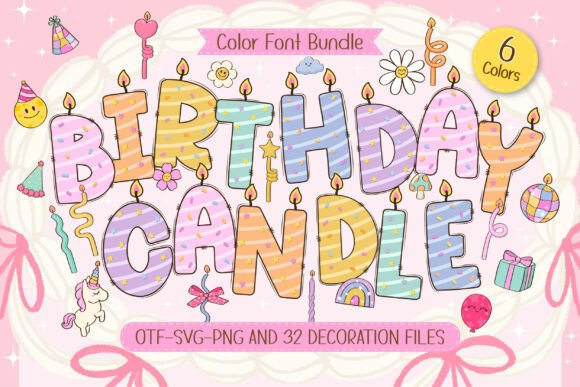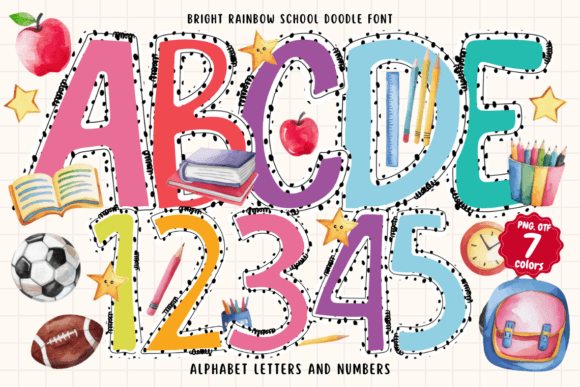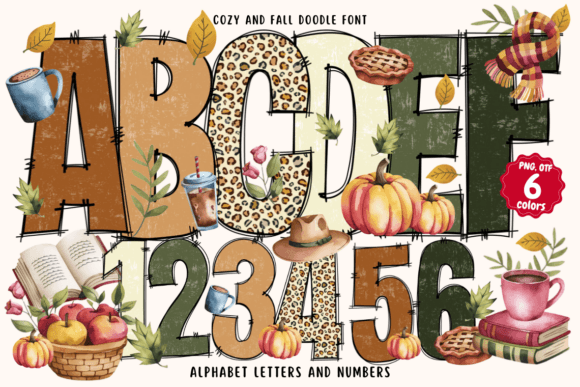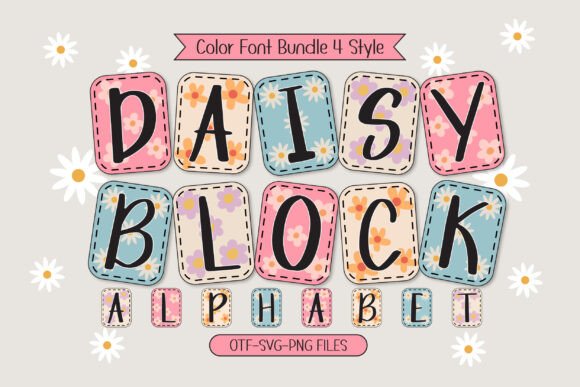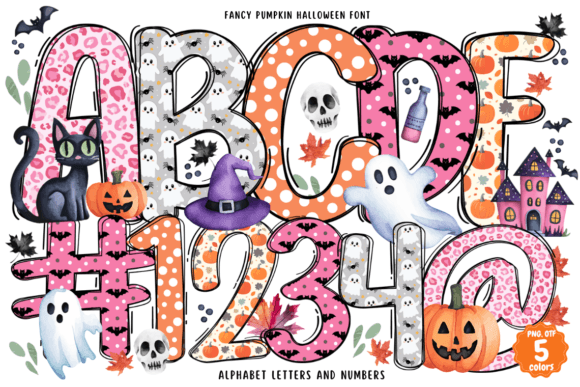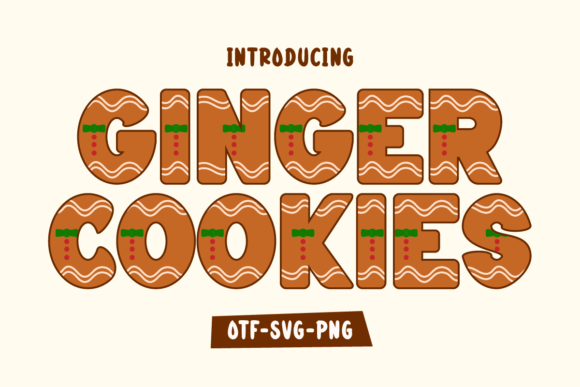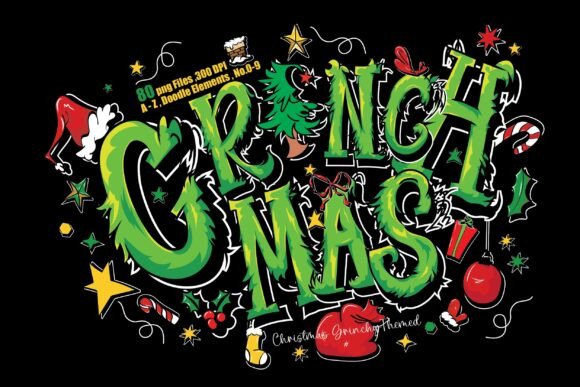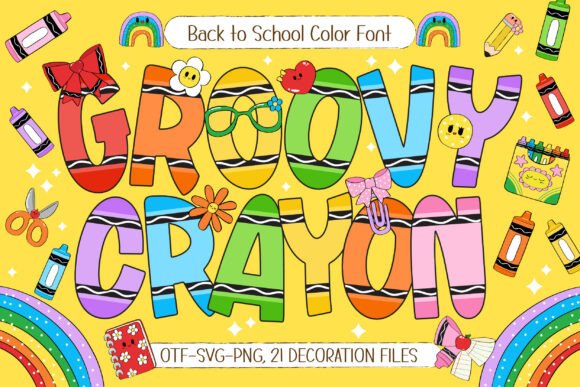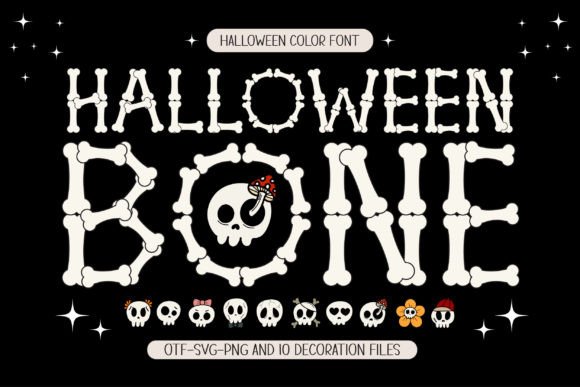
Canva Christmas Fonts: 34 Best Color & Sublimation Picks (2026)
Canva Christmas fonts that come in full color, rather than a single flat outline, need software that actually renders color fonts to show their full effect. This list rounds up 34 Christmas color fonts (OpenType-SVG) built for Canva, Photoshop, Illustrator, and sublimation projects, complete with candy stripes, glitter textures, and built-in holiday icons baked directly into the letterforms.
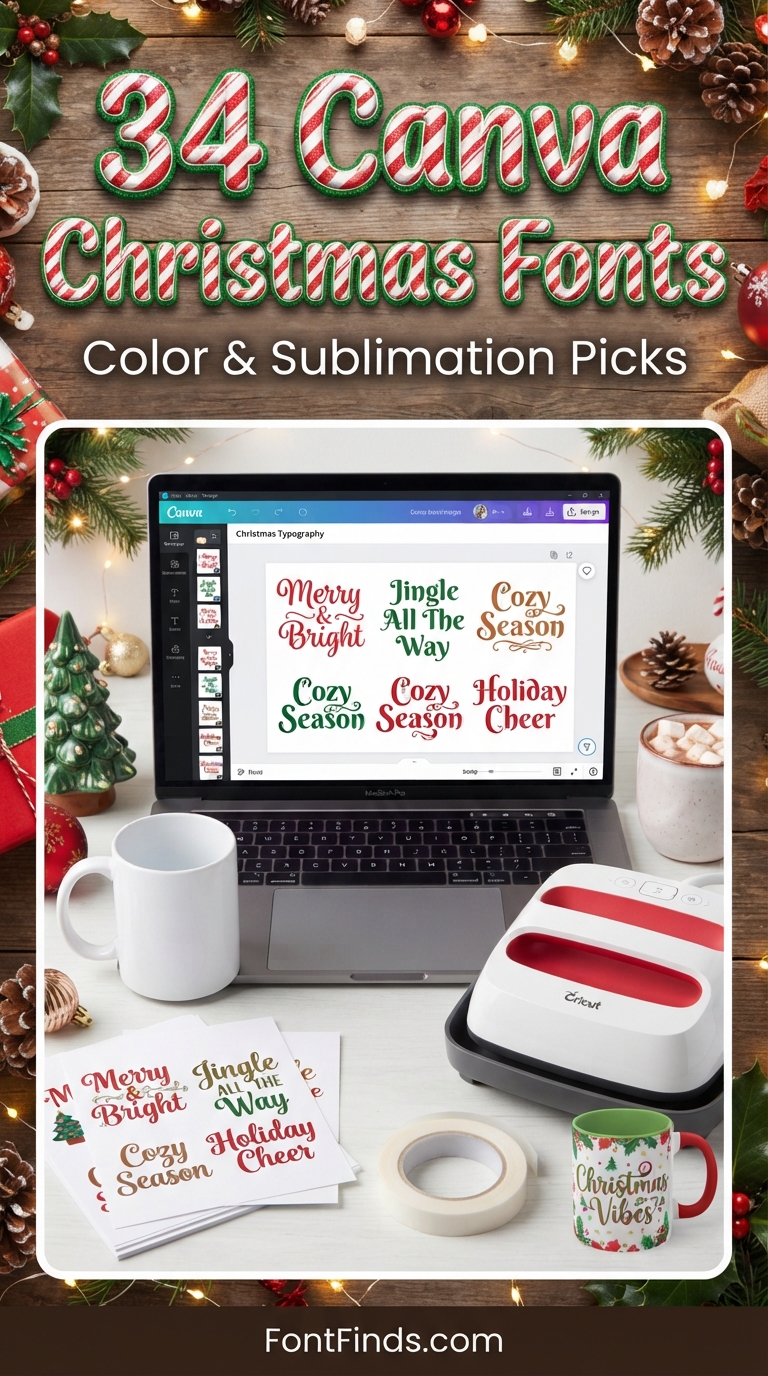
How Color Christmas Fonts Work
Color fonts (technically OpenType-SVG fonts) bake multiple colors, gradients, and even textures directly into each glyph, instead of relying on a single flat color you’d apply afterward. That makes Canva Christmas fonts in this format perfect for sublimation mugs, tumblers, and prints where a candy-cane stripe or glitter texture needs to render exactly as designed, no manual coloring required.
34 Canva Christmas Fonts
1. Winter Time
Best for: Invitations, Cards & Stationery
This font is used in designs for a playful or artistic feel, such as children’s books, posters, invitations, greeting cards, and more.
2. Christmas
Best for: Invitations, Cards & Stationery
These fonts are often used in designs that aim to convey a playful or artistic feel, such as children’s books, posters, invitations, greeting cards, and more.
3. Winter is Coming
Best for: Invitations, Cards & Stationery
These fonts are often used in designs that aim to convey a playful or artistic feel, such as children’s books, posters, invitations, greeting cards, and more.
4. Merry Christmas
Best for: Invitations, Cards & Stationery
These fonts are often used in designs that aim to convey a playful or artistic feel, such as children’s books, posters, invitations, greeting cards, and more.
5. Gingerbread Cookies
Best for: Invitations, Cards & Stationery
These fonts are often used in designs that aim to convey a playful or artistic feel, such as children’s books, posters, invitations, greeting cards, and more.
6. Christmas Eve
Best for: Invitations, Cards & Stationery
These fonts are often used in designs that aim to convey a playful or artistic feel, such as children’s books, posters, invitations, greeting cards, and more.
7. Xmas
Best for: Invitations, Cards & Stationery
These fonts are often used in designs that aim to convey a playful or artistic feel, such as children’s books, posters, invitations, greeting cards, and more.
8. Notebook Doodle
Best for: Holiday Decor
Introducing “Notebook Doodle,” a delightful Back-to-School color font inspired by the classic look of lined notebook paper and playful hand-drawn doodles.
9. Preppy Autumn
Best for: Holiday Decor
Wrap your autumn designs in cozy preppy aesthetic, warm seasonal colors, and handcrafted charm with Preppy Autumn, a decorative fall color font!
10. Halloween Parade
Best for: Holiday Decor
Introduce an enchanting blend of spookiness and cheer to your Halloween projects with the Halloween Parade font.
11. Groovy Crayon
Best for: Kids’ Projects
Introducing “Groovy Crayon,” a colorful and playful hand-drawn color font created for Back-to-School projects and kid-friendly designs.
12. Spooky Patch
Best for: Holiday Decor
Introducing “Spooky Patch” a charming Halloween color font inspired by the cozy art of patchwork quilting, where colorful fabric pieces are stitched together to create beautiful patterns.
13. Daisy Block Alphabet
Best for: Holiday Decor
Introducing “Daisy Block Alphabet” a delightful collage-style font that combines handwritten letters with cute daisy patterns in lovely, bright vintage pastel colors.
14. Halloween Bone
Best for: Holiday Decor
Introducing “Halloween Bone” a color font inspired by bones and designed with a distinct Halloween feel.
15. Christmas Santa
Best for: Holiday Decor
Elevate your festive projects with the delightful ‘Christmas Santa Font’. Imbued with a sense of whimsy, this font is a playful addition to your holiday design toolkit.
16. Twinkle Holly Color
Best for: Holiday Decor
Indulge in the enchanting charm of Christmas with the Twinkle Holly Color font.
17. Rainbow School
Best for: Holiday Decor
Rainbow School is a cheerful and vibrant handwritten font designed to bring a burst of color and creativity to your projects.
18. Wafer Ice Cream
Best for: Holiday Decor
Introducing “Wafer Ice Cream” a fun and playful ice cream-inspired font with a sweet color palette designed to add a delightful touch to your creations.
What are color fonts best used for?
Sublimation printing, mug and tumbler designs, digital graphics, and any print project where you want a textured or multi-color effect without manually layering colors yourself.
Do all Canva Christmas fonts need special software?
Only the color-font picks in this list do. Canva Pro handles them natively, so as long as you’re uploading through Canva Pro rather than the free tier, these Canva Christmas fonts should render exactly as previewed.